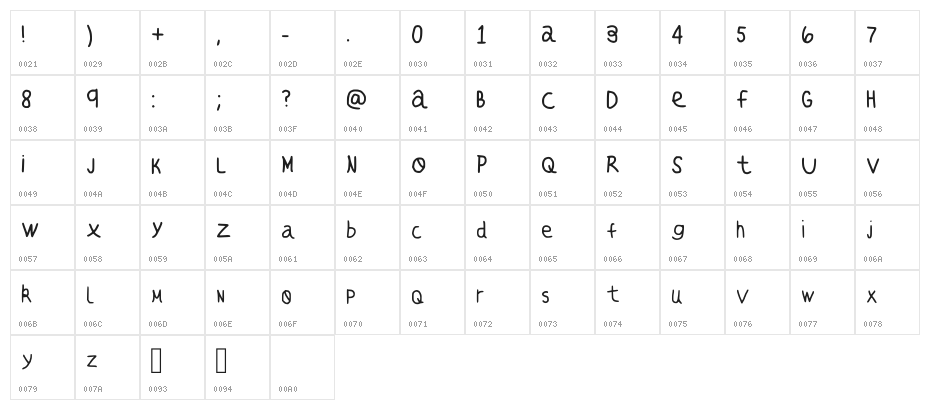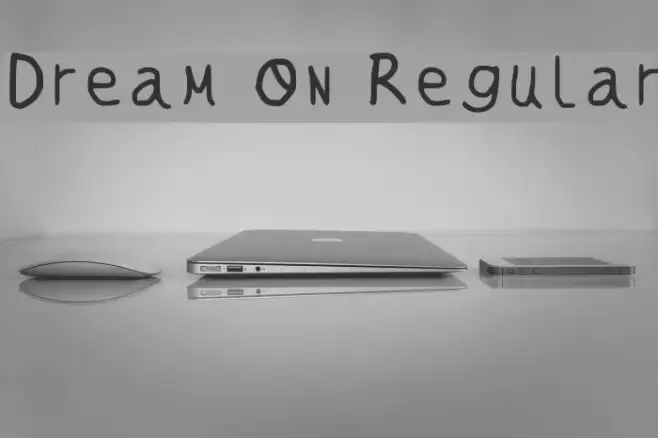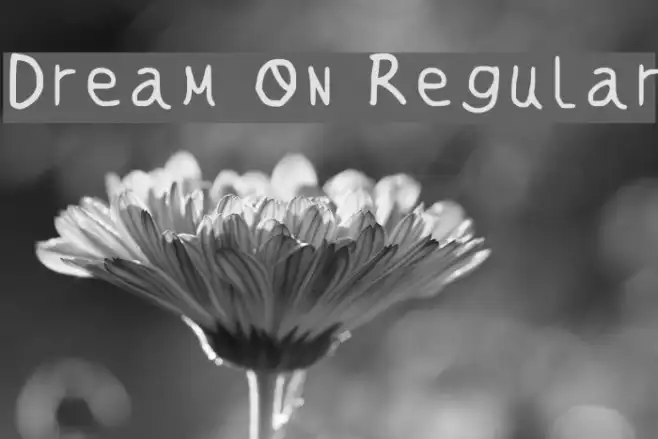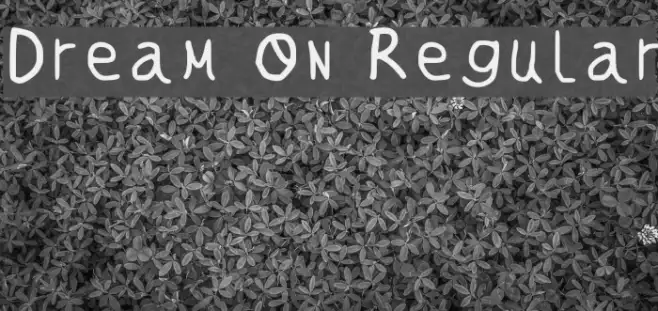
Dream On Regular Font
Dream On Regular Description
This playful and whimsical font features a handwritten style with a casual and friendly appearance. The characters are slightly irregular, adding a personal touch that mimics natural handwriting. The strokes are consistent in thickness, providing a uniform look while maintaining a sense of individuality. The font includes both uppercase and lowercase letters, numerals, and a selection of special characters. Its informal style makes it suitable for projects that require a personal or creative touch.
| Overall Style | Casual and playful |
| Use Case | Headlines, informal text, creative projects |
| Proposed Projects | Ideal for greeting cards, children's books, personal blogs, and creative projects that require a personal touch. |